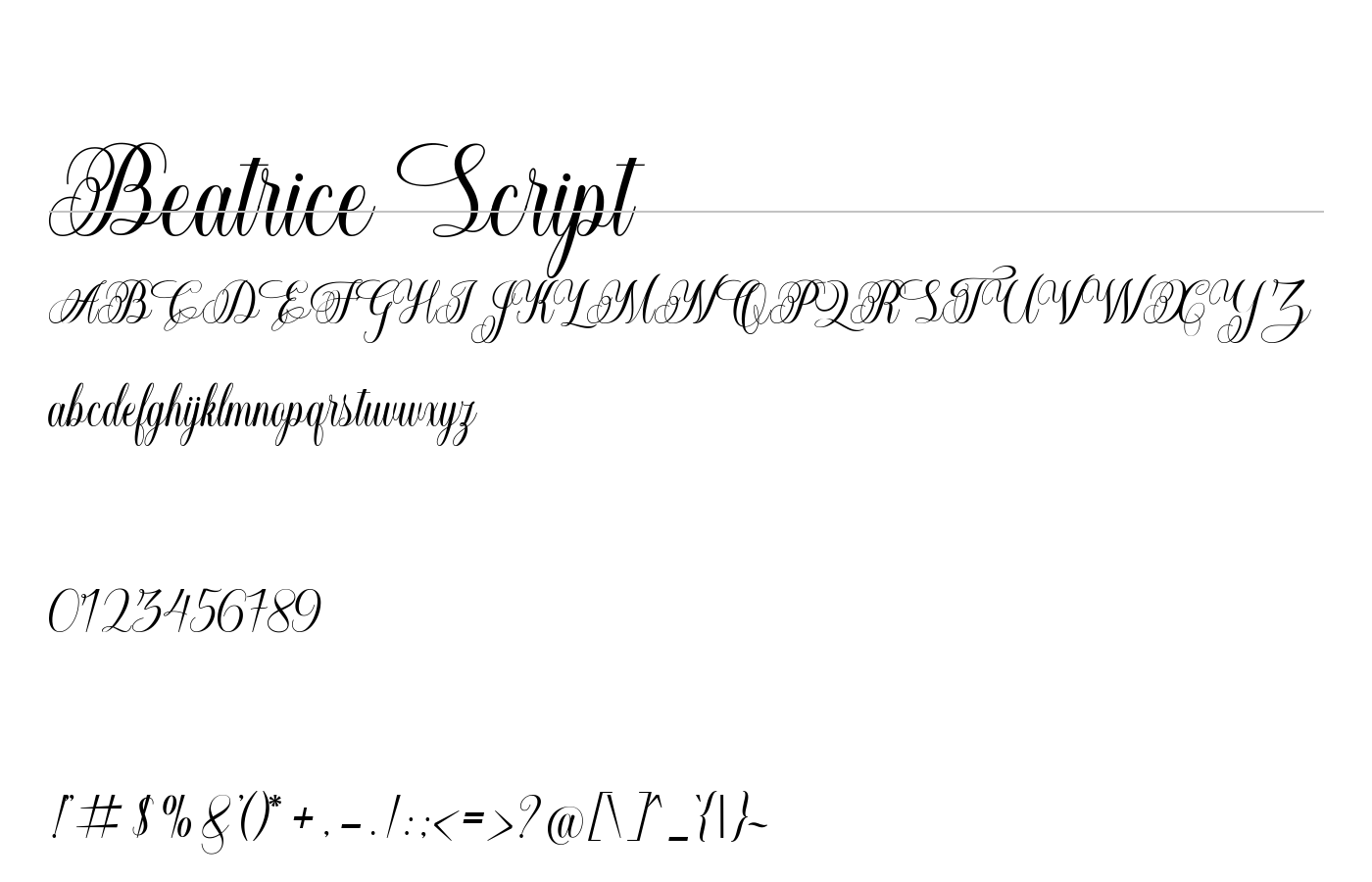
Beatrice Script is an elegant, high-contrast script font with delicate, flowing strokes and ornate swashes that give it a luxurious and refined appearance. Its slender letterforms and graceful curves make it perfect for sophisticated branding, wedding invitations, and high-end editorial projects where a touch of classic beauty is desired. This font shines best in large sizes for headlines or logos, where its intricate details can be fully appreciated.
Beatrice Script Font
About Beatrice Script Font